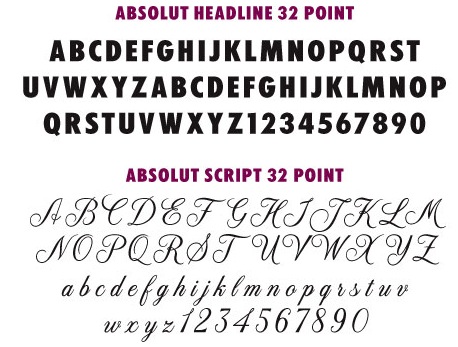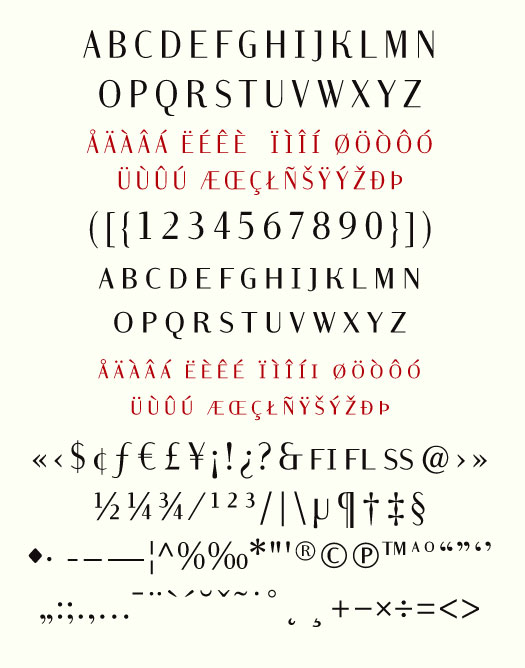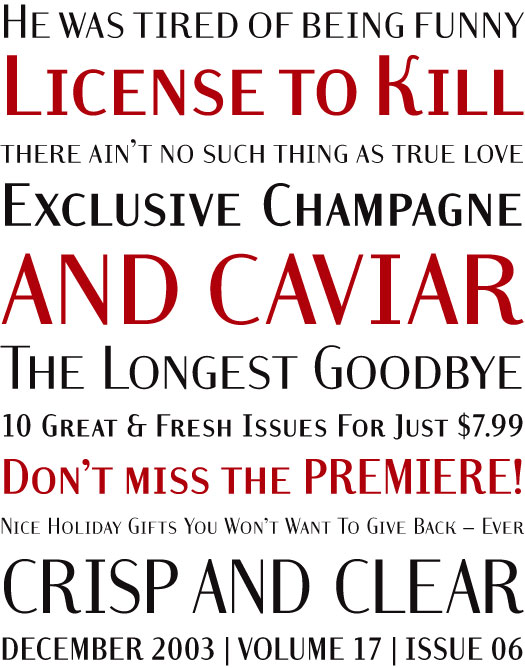
Mac Rhino Fonts (MRF) [Stefan Hattenbach]
Stefan Hattenbach (b. Stockholm, 1961) is an art director and graphic designer specializing in type and logo solutions. He lives in Stockholm, and has been creating typefaces since 1997. He describes himself as an espresso-fueled art director and graphic designer specializing in type and logo solutions. In 2003, he established Mac Rhino Fonts. His clients included Greenpeace, Amnesty International, Telia, and Hennes&Mauritz. Some of his early typefaces were at Nakedface (now extinct).
His typefaces:
• Abnormal Regular/Italic.
• Anziano (2006, Fountain). A wonderful and flowing text family influenced by Weiss (1926). See also Anziano Pro (2021).
• Brasserie (2007). Has hints of Peignot.
• Carte Normal.
• Delicato (2004-2005, Fountain). This was inspired by Jeremy Tankard's Enigma and Petr van Blokland's Proforma. See also Delicato Pro (2021).
• Euroglory (2009, Fountain). A smooth rounded sans family.
• Expansion (2009). A display sans.
• At GarageFonts:
• Hattrick.
• New Global. This is also at Umbrella Type/Veer.
• Stylish.
• Hangover.
• Kerning (2001).
• Montessori Script (2001). Free at Phil's.
• Pomodoro
• Speed Freak (2002).
• Global (at T-26).
• Graficz (1999-2001, PsyOps). An art deco typeface based on a Polish magazine cover from 1930 by I. Rubin.
• Islamabad (at PsyOps).
• Luminance (2002, PsyOps). An interpretation of Pracht, made in 1941-1943 by Carl Pracht.
• Lunda Modern (1998, PsyOps). After an original from 1938-1942 by Karl-Erik Forsberg called Lunda.
• Ommegaand (2007, Fountain). A stylish serif based on a 1920s Dutch poster.
• Oxtail (1998-2000, PsyOps). Starting out from an Egyptienne, Hattenbach created an upright cursive typeface.
• Polyester (PsyOps).
• Remontoire (1998, PsyOps). Based on one of the first typefaces drawn by Karl-Erik Forsberg.
• Replay (2010). Hattenbach's homage to Caslon. Followed in 2021 Replay Pro.
• Sophisto (2003, PsyOps). A 21-weight monolinear sans family.
• Stalemate (2002-2008). A workhorse sans family first made as a custom type for a German IT company. Released by Garage Fonts in 2002, and then Fountain in 2004, and expanded in 2007-2008. Now available as Stalemate Pro (2021).
• Tarocco (2000, PsyOps). A serif family based on Friedrich Bauer's 1906 face, Nordisk Antiqua.
Custom typefaces: Absolut Headline and Script (2008; for Absolut Vodka), Cancerfonden (2018, with Söderhavet), DFDS (sans and serif), Djurgårdens IF (2017: DIF Display, by Kurppa Hosk and Stefan Hattenbach is an octagonal soccer shirt typeface), Dometic Icons (2016), Exotic Snacks (grunge face), Filmstaden (2015-2017, a sans done with Söderhavet), Halebop (2017: octagonal, +Arabic), H&M Script, Hästens (a delicate serif family), Jernhusen (2017, done with Söderhavet), Resurs Bank (2018, done with Söderhavet), SJ (2015), Skanska (2016, done with Söderhavet: Skanska Sans), Skrapan Sans (2006-2007), So-Type (2017-2018, done with Söderhavet: So Ray, So Sargo and So Wrasse), Svenska Arkitekter (2016: the stencil typeface SA Display; done with Ramiro Oblitas), Svenska Dagbladet (2006, a cooperation of Macrhino described as follows: Svenska Dagbladet (SvD) needed a specific headline font for their business section, and ordered a custom typeface from Typecraft and Pangea design, which had both been involved in previous redesigns of the newspaper. The objective was to design something that had a distinctive and unique character, but that would also interact well with their existing grotesque typefaces. Mac Rhino Fonts was then commissioned by Pangea design to do the basic typeface design, and then developed the final design together with Orjan Nordling at Pangea. Mark Winelid at Typecraft then took the font through the final production stages by making detail adjustments as requested by SvD, technical optimization of outlines, kerning and OpenType formatting.), Swedbank (2016: Swedbank Headline), Sweden Sans (2013-2014, with Stockholm design agency Söderhavet:. this nationalistic typeface was commissioned by the Swedish government), Tallink (2017: Tallink Script), Thomas Cook (2013-2016: Thomas Headline and Thomas Script), TV4 (2016: Quattro Sans, developed together with Bold Scandinavia), Urban Escape (2017, UE Display was done for AMF Fastigheter), WAD (2018: Dwiggins Script, which was developed together with Glenn Sjökvist for Antikvariat Morris).
Free typefaces: Hattrick Smal Caps, Kerning Unicase, Montessori Script, Stylish Small Caps. Scheduled type: Beef, Fontanino, Hangover, Pomodoro, Republicana.